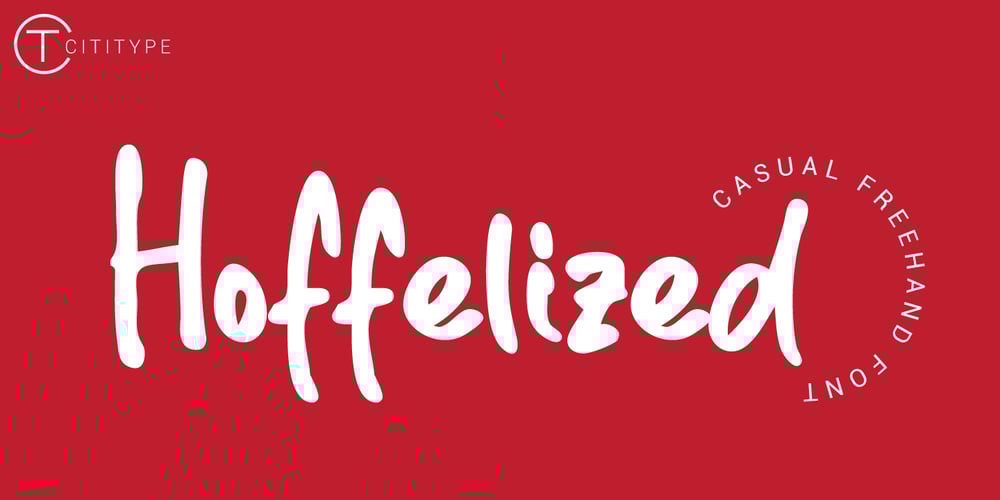
Hoffelized Font Family was designed by Siti Saribanon Nurjannah and published by Cititype. Hoffelized contains 1 styles and family package options. Hoffelized embodies fun, quirkiness and authenticity. This enchanting handwritten font will turn any creative idea into a true standout.